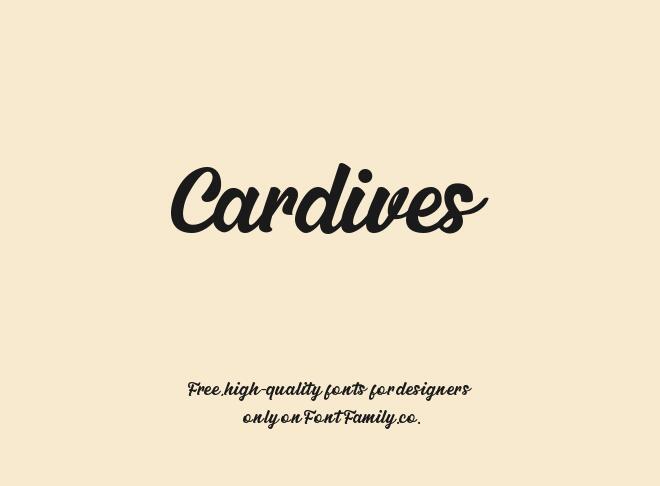
Cardives Font
Cardives Font is an exquisite handwritten script typeface, designed by the Creative Foundry. With its soft, elegant curves and natural flow, it mimics the beauty of human handwriting. The font is perfect for a wide range of design projects, including logos, invitations, wedding designs, social media posts, and much more. Its unique style sets it apart from other script fonts, making it a must-have for any designer's toolkit. Cardives Font is free for personal use and offers a touch of elegance and sophistication to any project. Its versatility makes it an excellent choice for both print and digital designs. It's comparable to other high-end script fonts but stands out with its unique, refined style. Choosing Cardives Font means choosing quality, elegance, and a timeless design aesthetic.